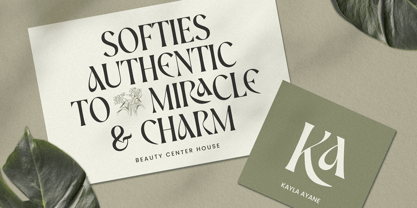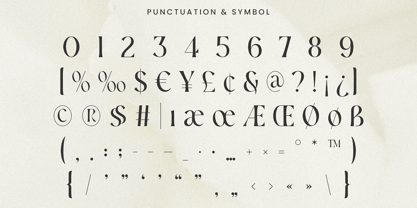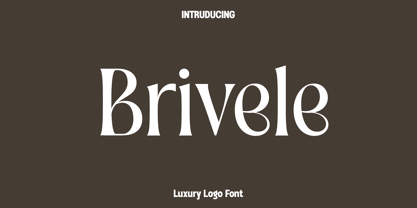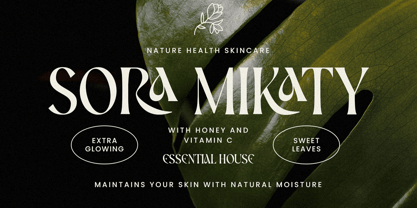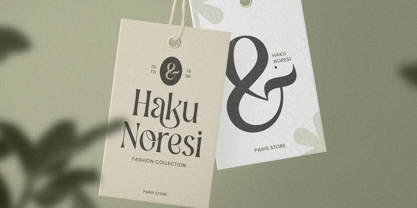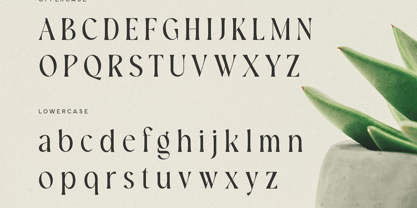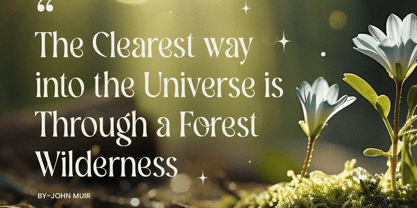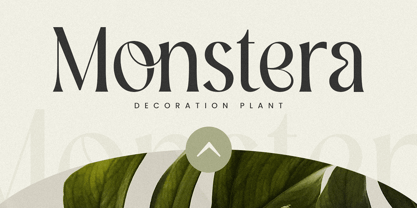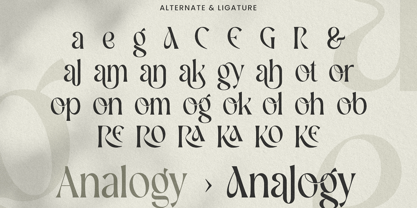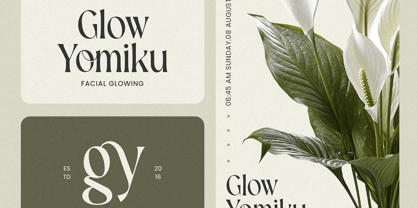
Brivele
by Only Fonts
The Brivele Font Family was designed by Olivia Love and published by Only Fonts. Brivele contains 1 styles. More about this family
Brivele – Luxury Logo Font Brivele is a premium luxury logo font designed to infuse elegance, prestige, and timeless sophistication into your branding projects. Inspired by the soft beauty of cinematic light, refined fashion aesthetics, and the graceful blur created through a camera lens, Brivele showcases sleek letterforms, elegant ligatures, and stylish alternative characters that create a distinctive and unforgettable visual identity. Every detail has been meticulously crafted to help your designs convey exclusivity, confidence, and premium quality. Ideal for luxury logos, fashion brands, jewelry collections, beauty products, cosmetic packaging, perfume labels, boutique businesses, hotels, restaurants, wedding stationery, editorial layouts, and premium marketing materials, Brivele adapts seamlessly across both print and digital media. Its refined proportions and balanced structure ensure exceptional readability while maintaining a sophisticated appearance that elevates every design. Brivele is tailored for designers who appreciate typography that marries artistic beauty with professional versatility. The included luxury ligatures and alternative characters empower you to create custom logos, elegant wordmarks, and unique brand identities effortlessly, giving every project a handcrafted and exclusive feel. Whether you are developing a minimalist luxury brand or an elaborate premium identity, Brivele offers the flexibility to achieve stunning results. With its harmonious blend of modern refinement and timeless elegance, Brivele transforms ordinary typography into a luxurious design statement. It is an essential addition to any designer's collection for crafting memorable branding that reflects style, craftsmanship, and lasting value. Brivele Font Features: • Luxury ligatures and alternative characters • Elegant premium logo style • Uppercase and lowercase letters • Numerals, punctuation, and symbols • OpenType features • Multilingual support • Perfect for luxury branding, fashion, beauty, packaging, editorials, invitations, and premium logos • Suitable for both print and digital projects
Designers: Olivia Love
Foundry: Only Fonts